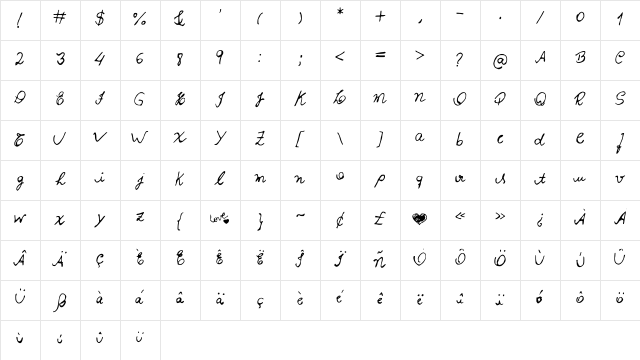
Complete Izabela Medium glyph index. Displaying only characters natively supported by Izabela Medium font.
Izabela is a composed and adaptable typeface that performs quietly and consistently across a wide range of design contexts.